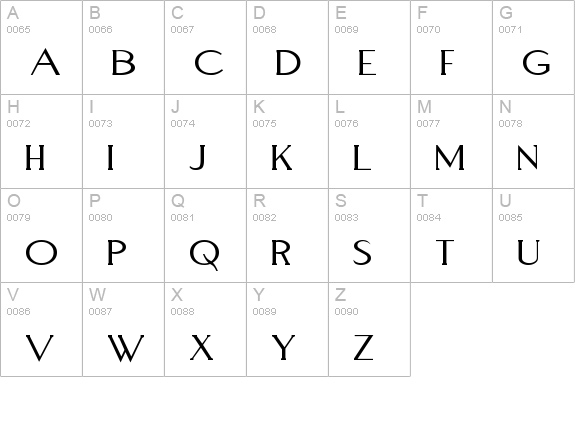
Aquaduct (full set) Plain Font Details
Introducing the Aquaduct font family in Plain style, a versatile and modern typeface designed to make your projects stand out. With its clean lines and sleek appearance, Aquaduct Plain font exudes a sense of sophistication and professionalism. Perfect for a wide range of design applications, from branding and marketing materials to websites and more. This full set of Aquaduct font includes a complete range of characters, punctuation marks, and symbols, allowing you to create stunning visuals with ease. The simplicity and elegance of this font make it suitable for both digital and print projects. Best of all, Aquaduct Plain font is available for free download at FontsMarket.com. Don't miss out on the opportunity to add this beautiful typeface to your collection and elevate your designs to the next level. Download Aquaduct today and start creating with style and confidence.